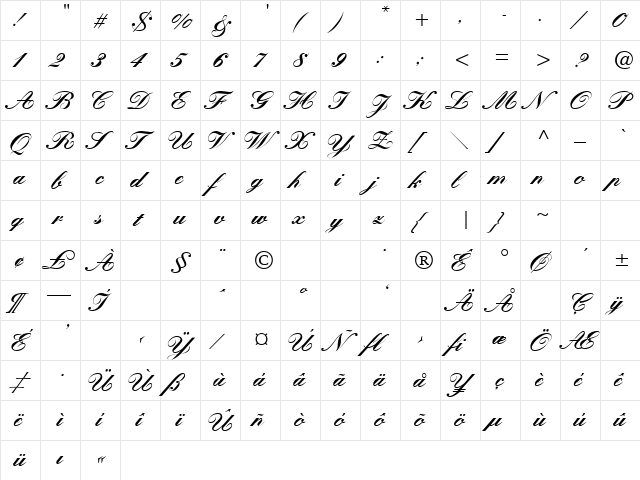
KuenstlerScriptBlack Regular
Design Context for KuenstlerScriptBlack Typeface
KuenstlerScriptBlack brings a calligraphic fluidity to the page — its connecting strokes and expressive curves give it an unmistakably human quality.
Font Pairing: Combine KuenstlerScriptBlack with a simple geometric sans for maximum contrast — the tension between flowing curves and clean structure is a classic typographic pairing.
Pro Tip: Pair KuenstlerScriptBlack with a clean sans-serif for supporting text. The contrast between fluid script and geometric structure creates an elegant typographic hierarchy.